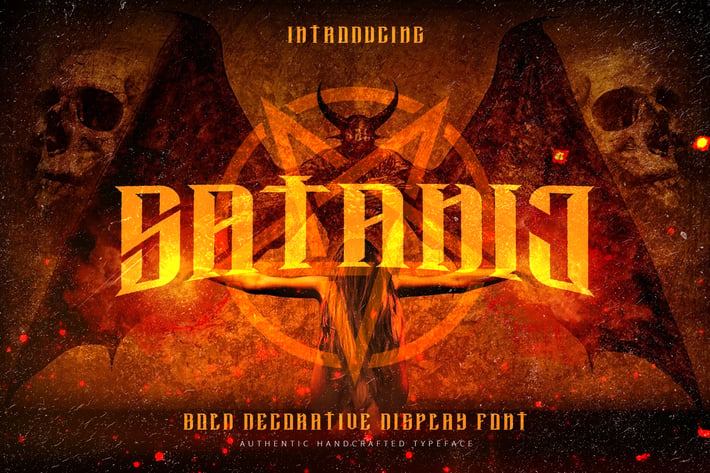
Satanic - Decorative Bold Display Typeface
Introducing Satanic font. Are you looking for a bold and solid display font that has horror feeling? We can help! Try to download our Satanic font. The font is suitable to use for any vintage occasion such as book, logo, band, event, and others :)